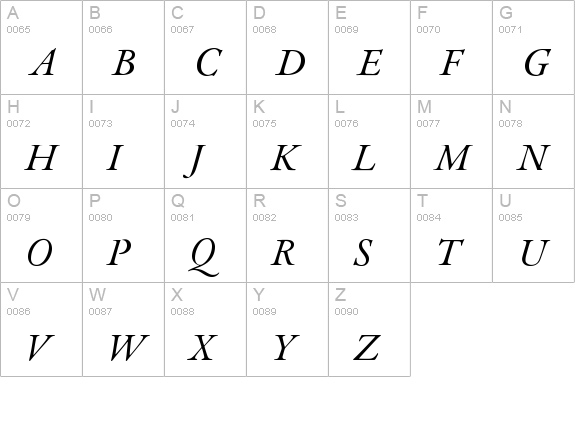
Garamond Premier Pro Italic is a distinctive, italic variant in the Garamond typeface family \xE2\x80\x94 well suited to design and typography projects.
Garamond Premier Pro Italic font exudes elegance and sophistication with its graceful slant and delicate curves. The italicized version of the timeless Garamond Premier Pro typeface adds a touch of flair and style to any design project. Its refined and classic appearance makes it a popular choice for conveying a sense of tradition and prestige. This exquisite font is not only visually appealing but also highly versatile, suitable for a wide range of design applications such as branding, editorial design, and packaging. The Garamond Premier Pro Italic font strikes a perfect balance between tradition and modernity, making it a timeless choice for designers looking to add a touch of sophistication to their work. The best part? Garamond Premier Pro Italic font is freely available to download at FontsMarket.com, allowing designers to access this exquisite typeface without any cost. Enhance your design projects with the elegance and refinement of Garamond Premier Pro Italic font today!